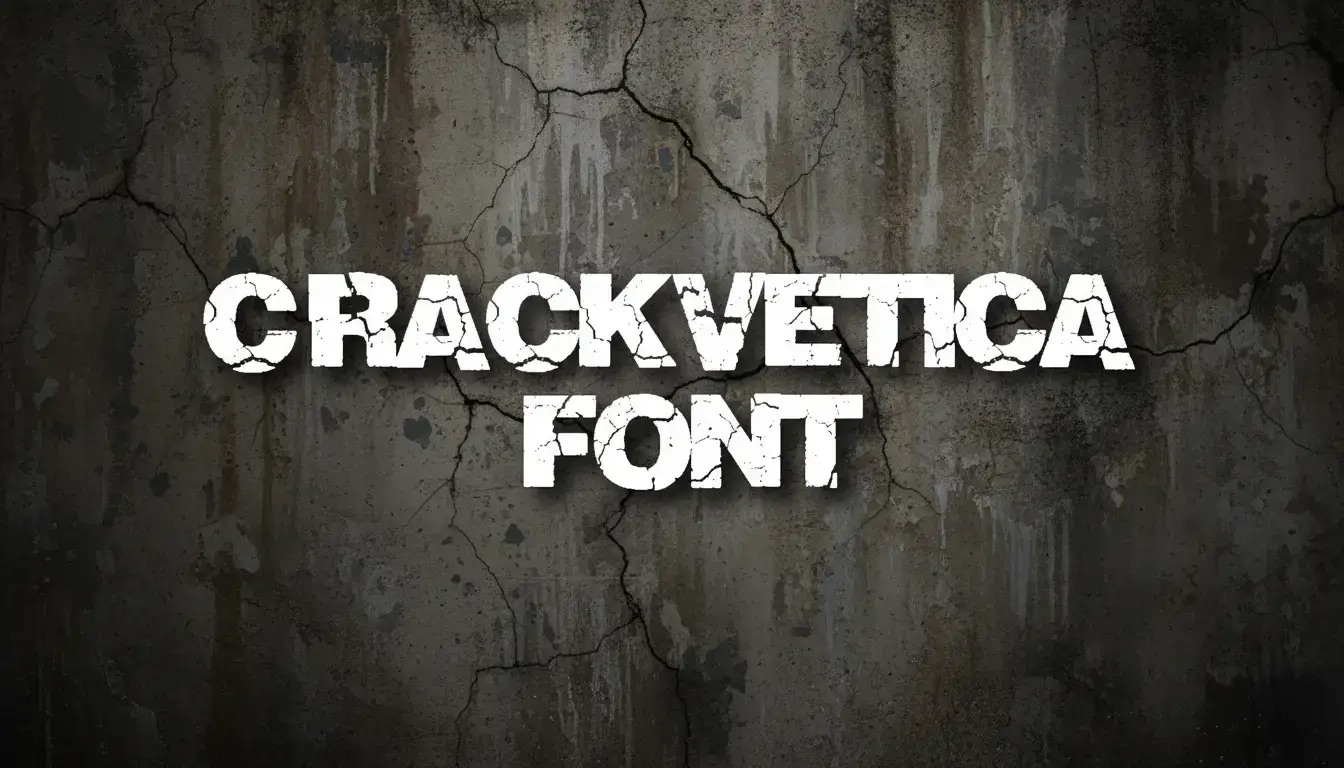
Crackvetica Font
Crackvetica
Crackvetica is a fancy font created by max infeld and released through xerographer.com. Bold and full of character, it's built to stand out rather than blend in. You can download it for free and test it with your own words in the preview above.
With complete upper and lowercase letters and all ten digits, Crackvetica is ready for real wording, not just a single headline. Punctuation is limited, so look at the character map if you need a specific symbol. There are no accented letters like é or ñ, so it's best kept to English text.
Designers usually reach for fonts like Crackvetica when they're making posters, logos and eye-catching headlines. Use it for one standout word or headline and let simpler fonts handle the rest.
No. Crackvetica has no accented letters such as é, ñ or ü, so it's best for English text.